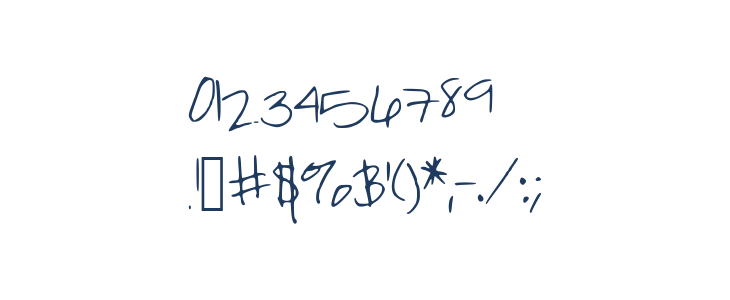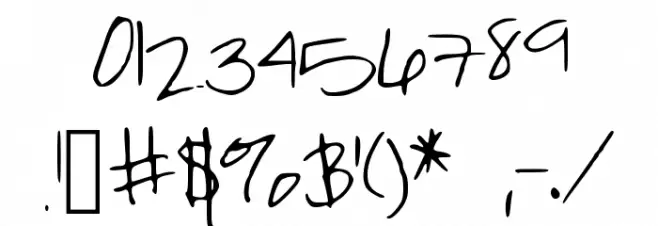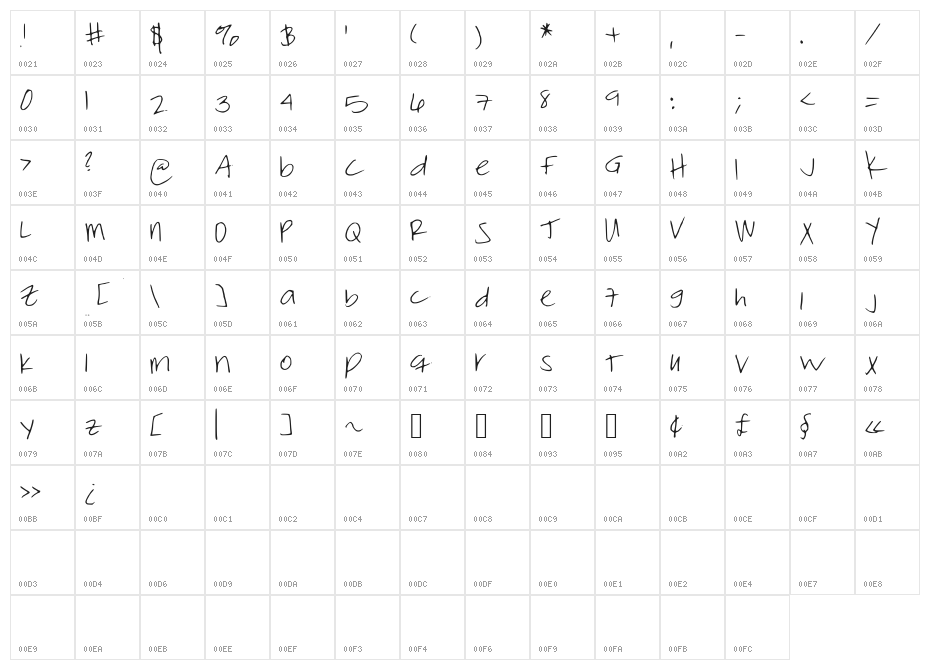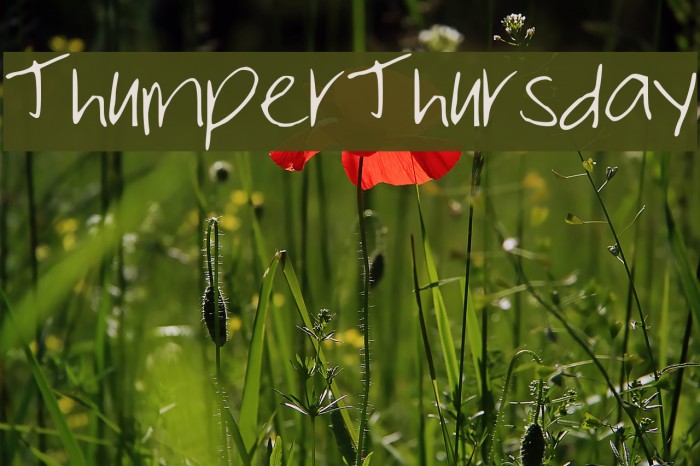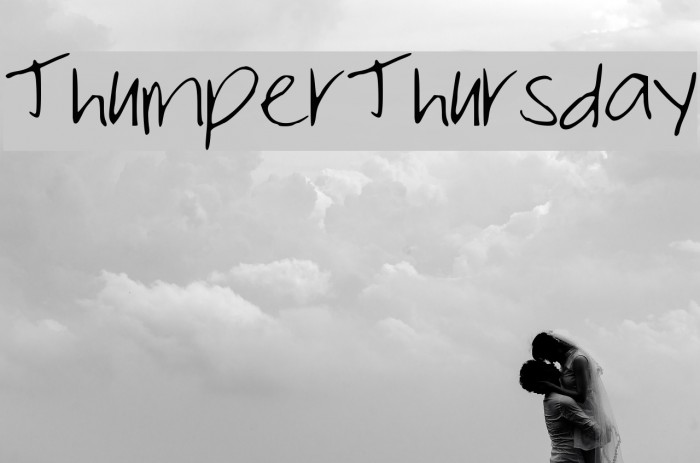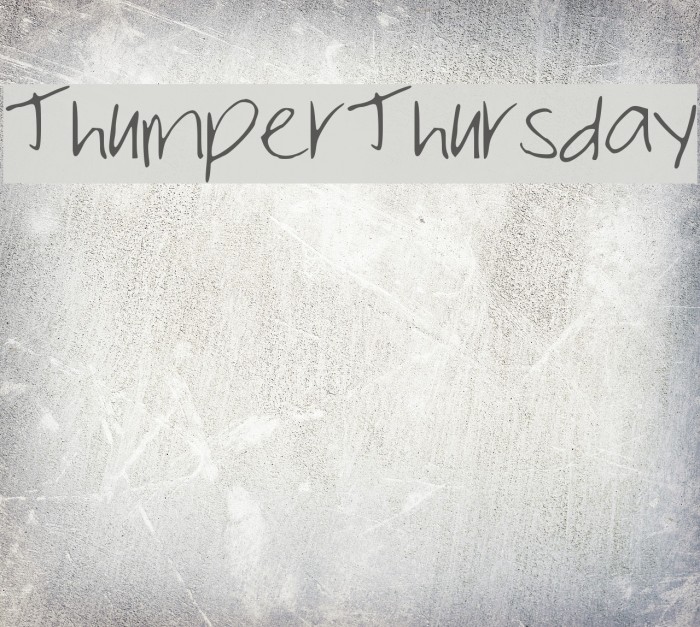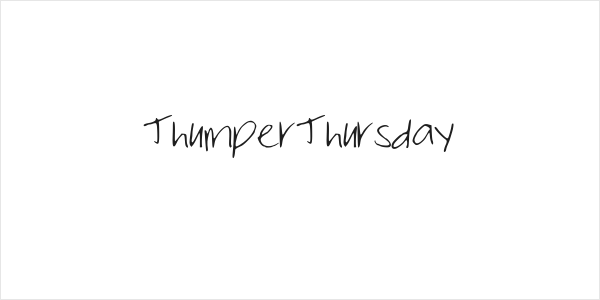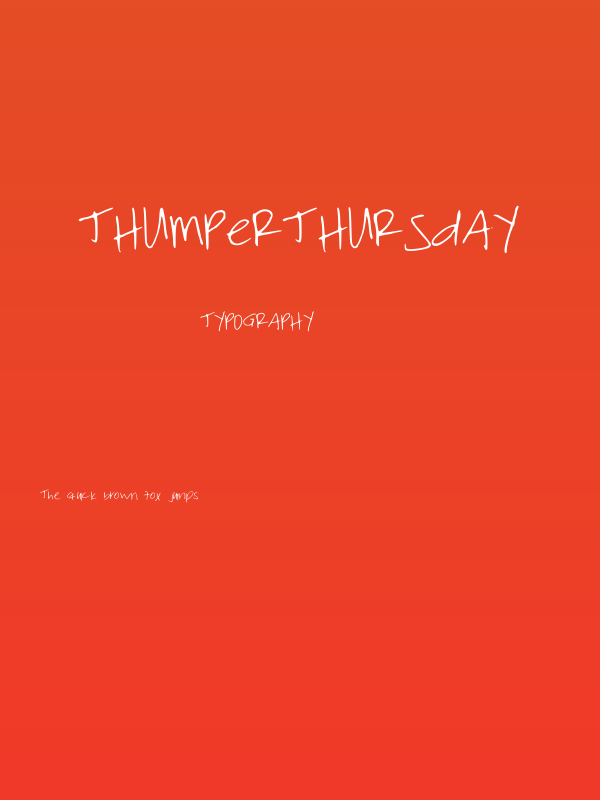
ThumperThursday Font
ThumperThursday Description
This font features a casual, handwritten style with a playful and informal appearance. The letters are slightly slanted, giving them a dynamic and energetic feel. The strokes are uneven, mimicking the natural flow of handwriting, which adds a personal touch. The uppercase and lowercase letters are distinct, with the uppercase being slightly larger and more pronounced. The numbers and special characters maintain the same handwritten aesthetic, ensuring consistency throughout. This font is ideal for projects that require a personal, approachable, and friendly vibe.
| Use Case | Headlines, Informal text, Personal projects |
| Proposed Projects | Ideal for greeting cards, personal notes, informal invitations, and social media graphics. |